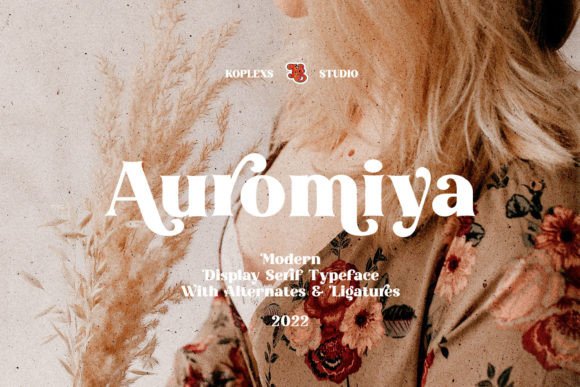
Escape into a world of timeless elegance with Auromiya, the captivating serif font that breathes new life into your digital creations. Experience the fusion of classic beauty and modern flair as this font elevates your designs beyond the ordinary.
Immerse yourself in the intricate details of Auromiya's letterforms, meticulously crafted to evoke a sense of nostalgia while maintaining a contemporary edge. Its graceful curves and sharp serifs dance together in perfect harmony, adding an air of sophistication to every project.
With Auromiya, you'll embark on a journey through time, where the charm of the past meets the excitement of the present. Its versatile personality makes it an ideal companion for a wide range of design endeavors, from the timeless allure of print media to the dynamic energy of online platforms.
Craft captivating headlines that demand attention, enchanting logos that leave a lasting impression, and elegant body text that invites readers into your story. Auromiya's versatility extends to a vast array of creative applications, including branding, editorial design, web design, and social media graphics.
Unleash your imagination and explore the endless possibilities that await you with Auromiya. Its extensive character set, including multilingual support and a wide range of alternates, empowers you to create designs that resonate with a global audience. The creative possibilities are boundless.